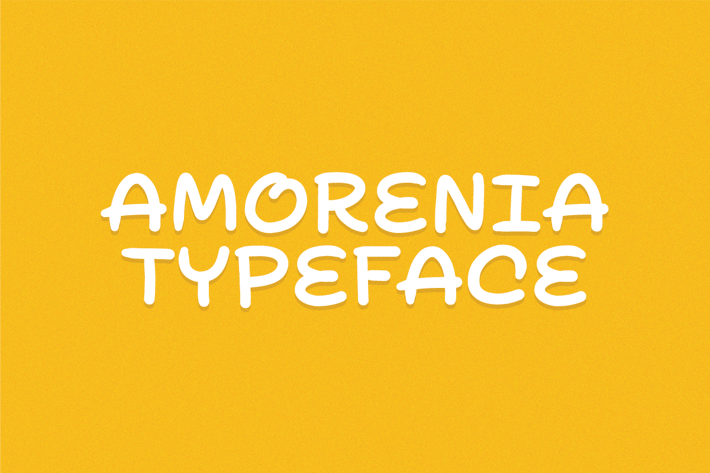
Amorenia Typeface
Amorenia is a cute typeface inspired by handmade lettering this, typeface is ready to use and suitable retro design like for Logotype, Label, Cute, T-Shirt, Banner, Badges, Poster and etc.